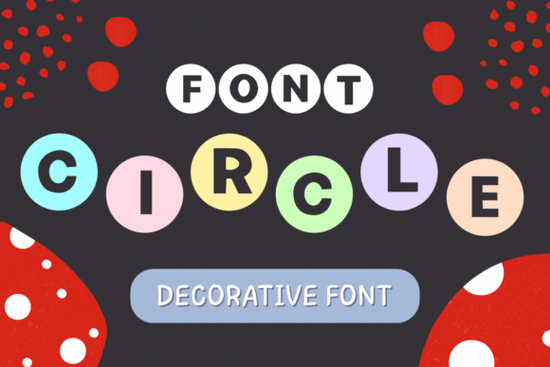
Looking for a decorative font that adds charm and clarity to your designs? Circle Font is a standout choice for anyone who wants clean, bold typography with a friendly feel. Each letter is neatly framed within a circle, creating a balanced layout that works well across many creative projects. It’s perfect for logos, posters, packaging, social media graphics, and even children’s books or crafts.
What makes Circle Font special?
The design of this font centers around geometric harmony. Every uppercase and lowercase character fits perfectly inside its circular boundary, giving your text a consistent, rhythmic look. The soft round edges make it feel approachable, while the strong outlines keep it visually impactful. It’s not just decorative it’s functional, too.
You’ll find it useful in both digital and print formats. Whether you’re designing a birthday invite, a brand logo, or a t-shirt for a small business, the font brings personality without overwhelming the message. Its minimal style lets other elements shine, making it ideal for titles, headers, and playful compositions.
Where can I use Circle Font?
- Logos & Branding: Use it to give your brand a unique, memorable identity. The circular format feels modern and inviting.
- Posters & Flyers: Great for events, promotions, or art displays where you want attention drawn to the text.
- Packaging Design: Works beautifully on labels, boxes, or bags especially for food, gifts, or handmade products.
- Social Media Graphics: Add fun, eye-catching text to Instagram posts, Facebook covers, or Pinterest pins.
- Children’s Projects: Ideal for coloring pages, storybooks, or classroom materials thanks to its clear, friendly style.
How does it compare to similar fonts?
If you’ve explored other decorative fonts like fairy-style typefaces, you’ll notice that Circle Font stands out for its structured layout. Unlike some whimsical fonts that can feel chaotic, this one keeps things neat and readable. It also shares a playful spirit with fonts like Daisyfolk, but with a more geometric precision.
For those who love sporty themes, the soccer-inspired fonts offer energy and motion but Circle Font brings calmness and balance. If you’re into cross-stitch or embroidery, you might appreciate how certain decorative fonts work in needlework. Circle Font’s clean shapes translate well into handcrafted designs too, especially when stitched in matching thread colors.
Design tips for using Circle Font effectively
- Pair it with a simple sans-serif font for contrast this helps balance the decorative style.
- Use color to highlight each circle; bright or pastel tones make it pop on social media.
- Keep text short in display uses this font shines in headlines, not long paragraphs.
- Test it at different sizes to ensure readability, especially on smaller items like stickers or packaging.
Whether you're a designer, crafter, or running a print-on-demand shop, having a versatile font like Circle Font in your toolkit adds flexibility. It’s easy to use, visually consistent, and brings a sense of joy to every project it touches.